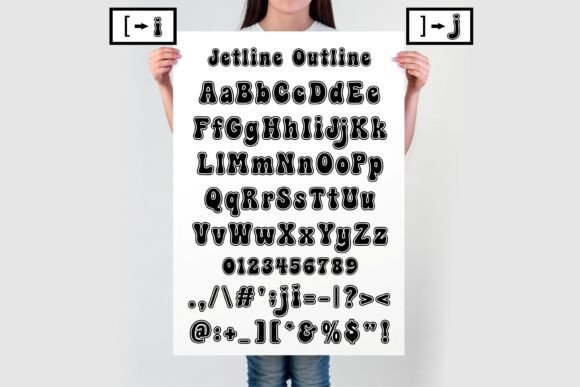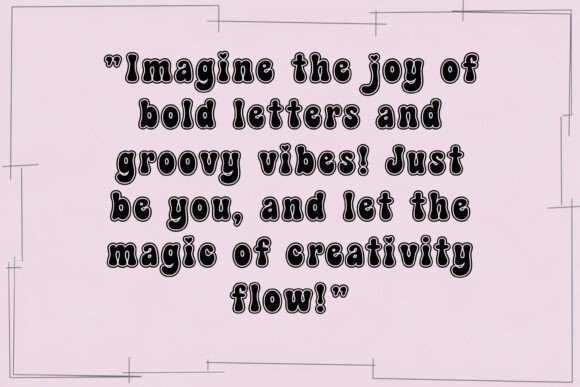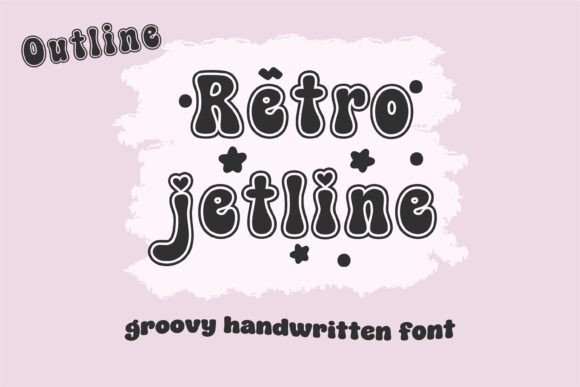
Retro Jetline Outline Font
About the Retro Jetline Outline Font
Get ready to be inspired by Retro Jetline Outline Font, a fresh and dynamic typeface for modern creators. Retro Jetline is a bold, groovy outline font that adds charm and playfulness to any design. This handwritten-style typeface features fun hearts and star accents, perfect for retro-themed projects, t-shirt designs, posters, social media graphics, and more. Add a touch of vintage vibes with its quirky yet versatile style. Ideal for Cricut, Silhouette, Procreate, and other design programs. Files include OTF and TTF formats for easy installation and use. Let your creativity flow with this unique font!